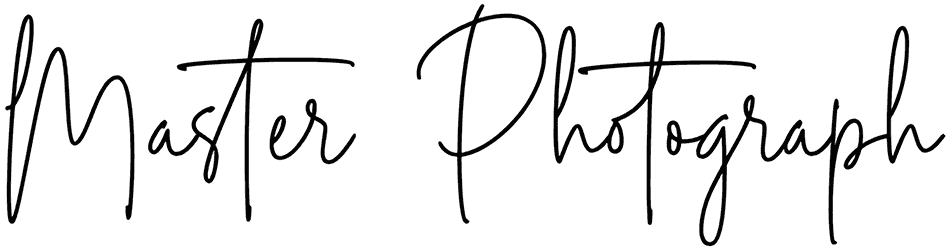
Master Photograph Font
Invite more elegance than ever to your text with a fine signature font like Master Photograph and you’re covered for all your formal projects as well as your personal designs. Because of the thin strokes and the cursive…
Invite more elegance than ever to your text with a fine signature font like Master Photograph and you’re covered for all your formal projects as well as your personal designs.
Because of the thin strokes and the cursive style, it’s going to turn out so natural that it feels like real handwriting rather than a handwritten font. That’s the kind of text that seems fit for your autograph at the introduction of a book, on a music cover, and more.